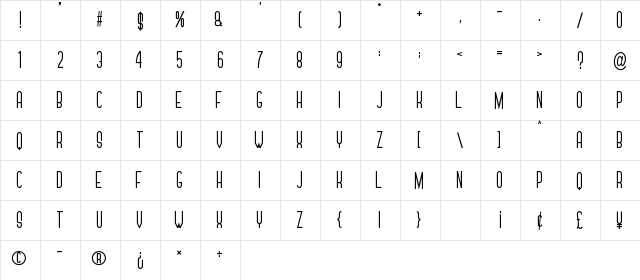
Forever Together Sans Regular Font Preview
Forever Together Sans Regular
Forever Together Sans Regular Font Details
| Designer | Lettersiro 2018 |
Design Context for Forever Together Sans Typeface
Forever Together Sans is a composed and adaptable typeface that performs quietly and consistently across a wide range of design contexts.